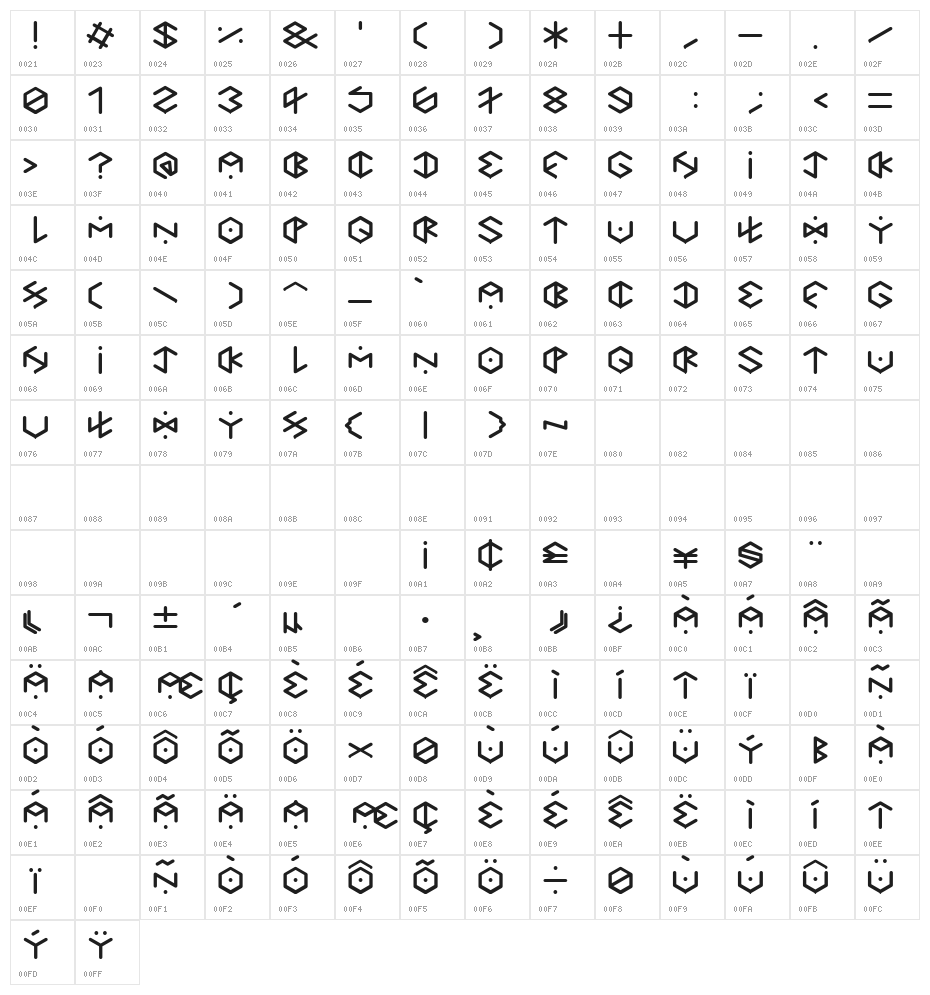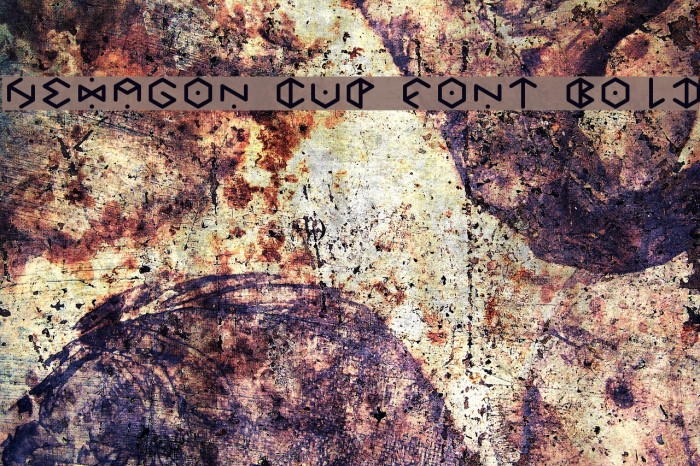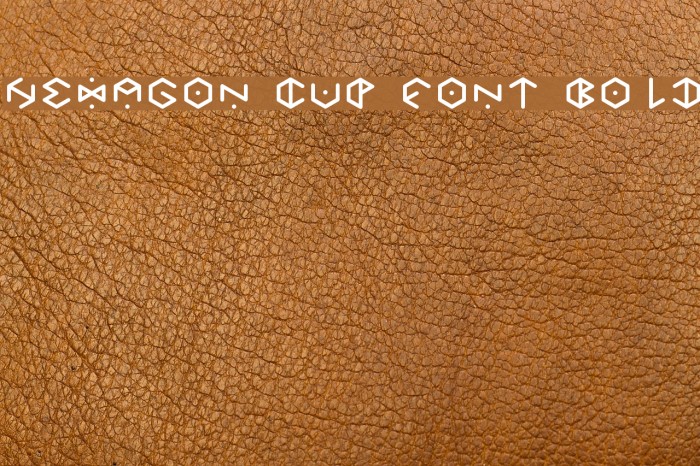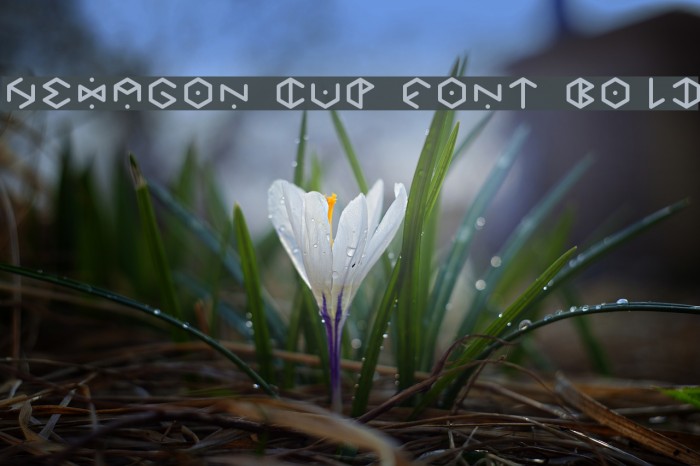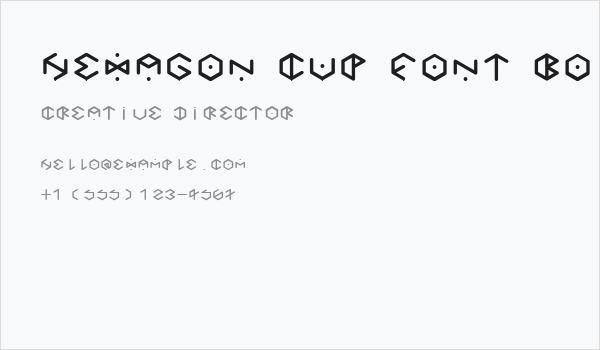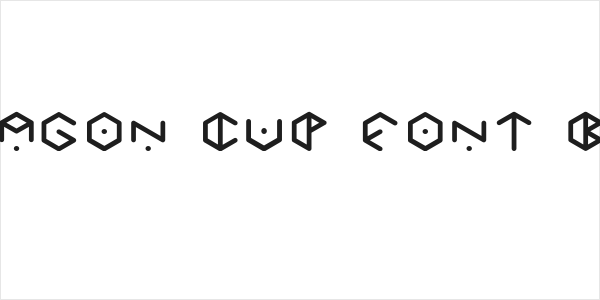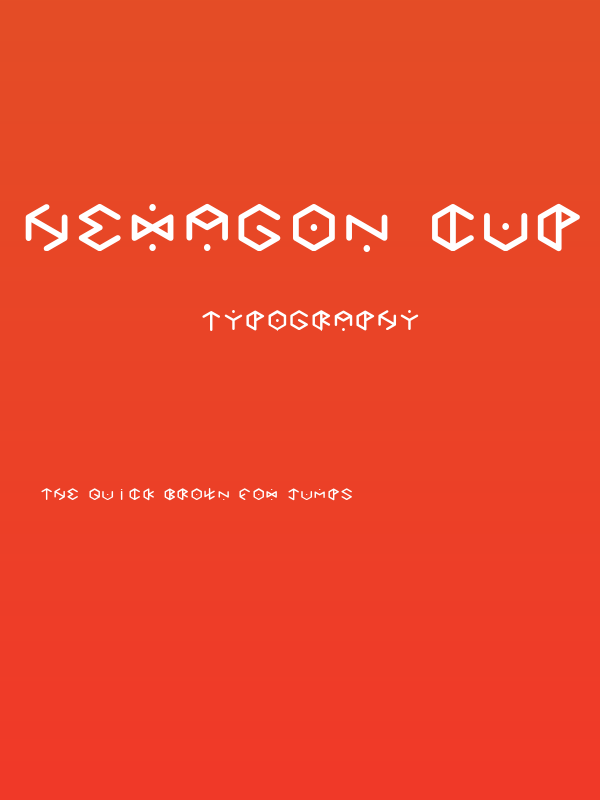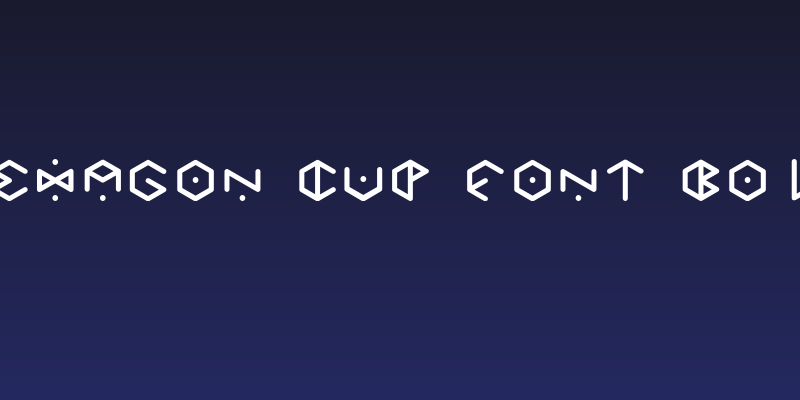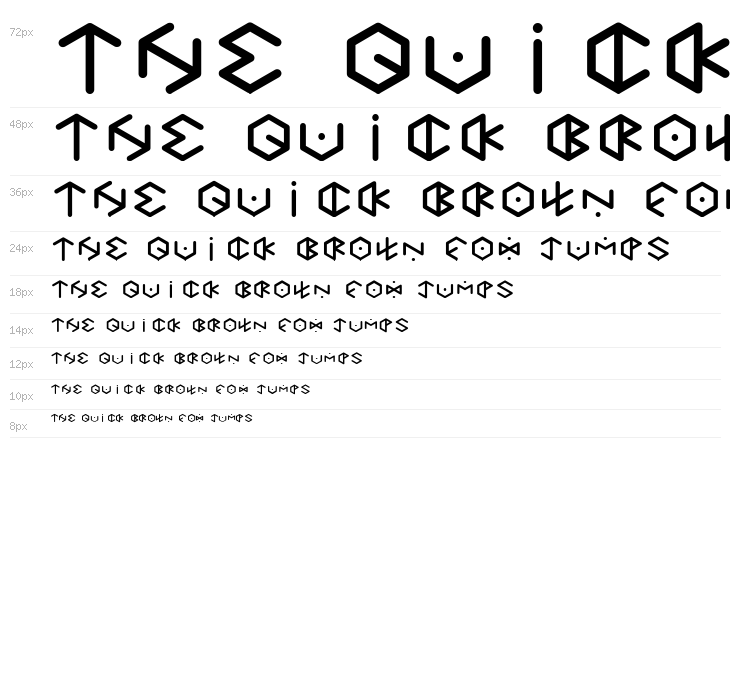
HEXAGON cup font Bold Font
HEXAGON cup font Bold Description
This font features a geometric and futuristic design, characterized by hexagonal shapes and angular lines. Each character is constructed with a consistent use of straight edges and sharp corners, creating a cohesive and modern aesthetic. The uppercase and lowercase letters maintain a uniform style, while the numbers and special characters integrate seamlessly with the overall design. The font's unique structure makes it stand out, offering a bold and distinctive appearance that is both eye-catching and versatile.
| Proposed Projects | Ideal for sci-fi themed projects, tech branding, video game titles, and modern posters. |